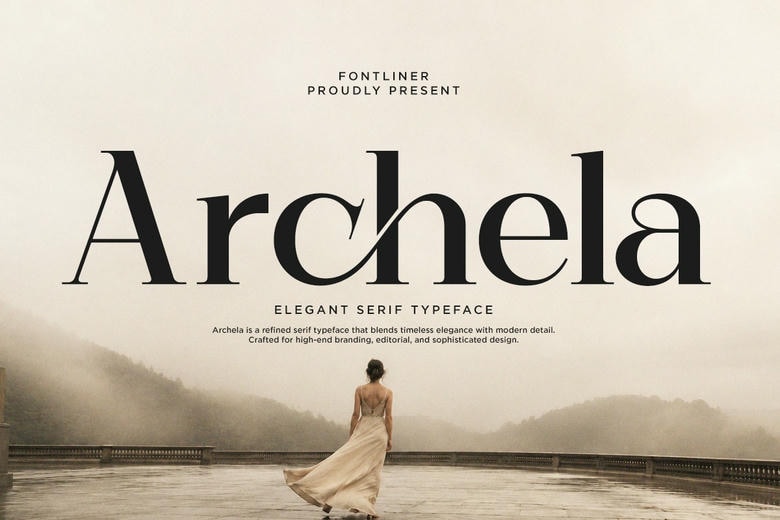
Archela Font
Archela is an elegant serif font with unique ligatures, made for sophisticated branding, luxury editorials, and memorable visual identities. It blends high contrast with classic and modern styles.
Archela’s stylish and expressive look fits well with fashion campaigns, beauty brands, cosmetics packaging, magazine covers, wedding invitations, boutique branding, and premium product displays. Its elegant headlines, logos, and titles make a strong impression.
Archela Serif Font